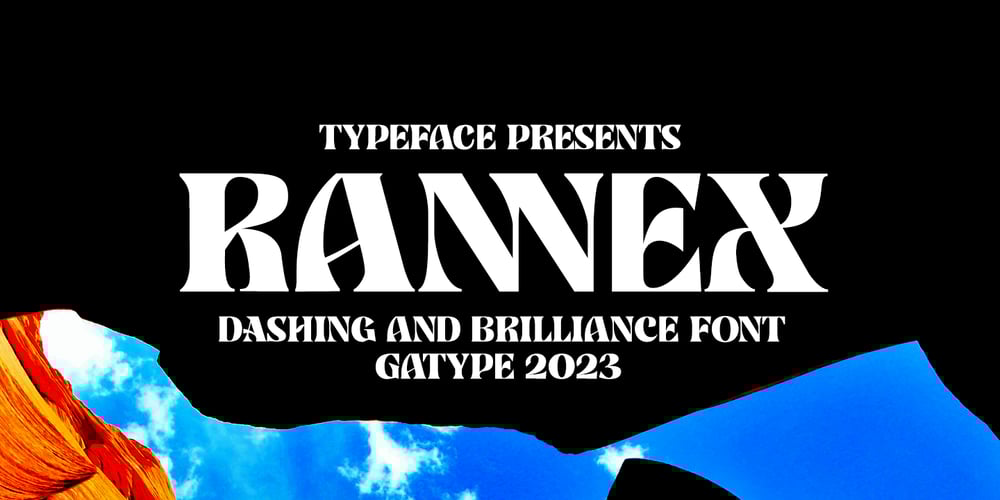
RANNEX
RANNEX font
RANNEX Font Family was designed by khaidir and published by Gatype. RANNEX contains 1 styles and family package options. Bannex is a versatile font with a clean, sleek shape. The overall typeface is strong to bring order and harmony between letters. Best used as Instagram, poster, web design, magazine, logo or product.-Letters, Numbers, Puntuations, Accens Ligatures, Swashes, AlternatesIf you’ve got any questions don’t hesitate to drop me a messagethank you